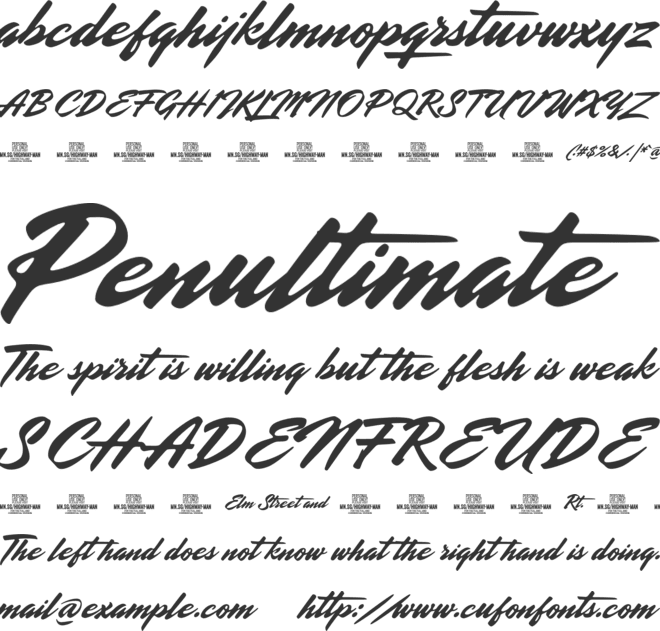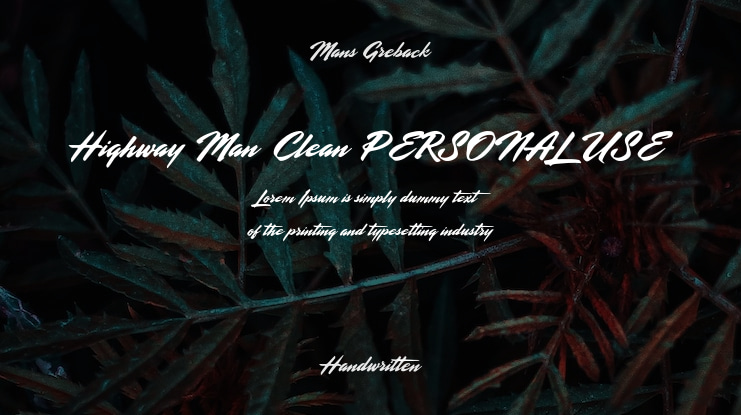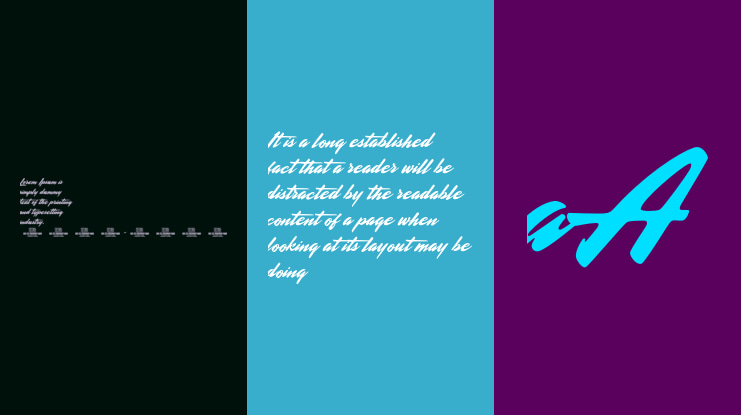
Highway Man Clean PERSONAL USE Font Family
Mans Greback
NOTE: This font is for PERSONAL USE ONLY!To purchase a commercial license, visit:https://www.mansgreback.com/product/highway-manHighway Man is a high-speed script typeface with an intense, fast-moving style. With nods to vintage automotive culture and classic racing aesthetics while being inherently progressive, Highway Man carries both a retro and modern appeal.For questions, please visit https://mansgreback.com/faq